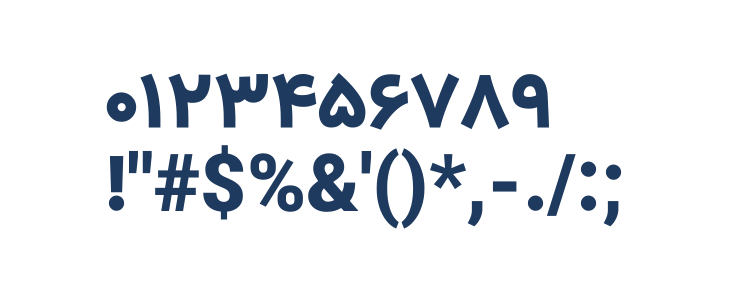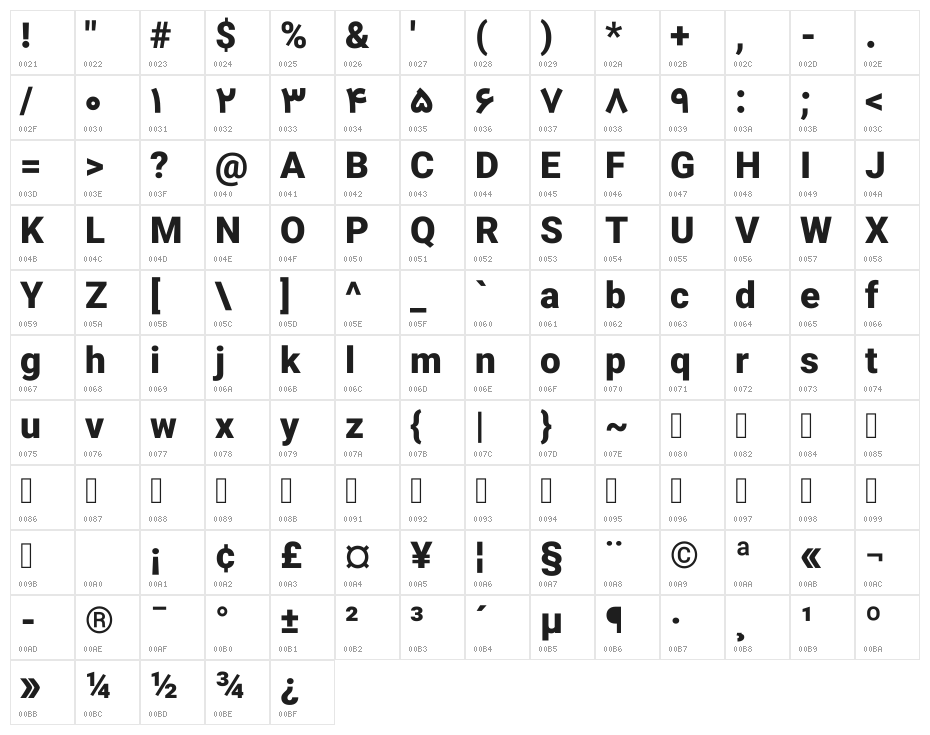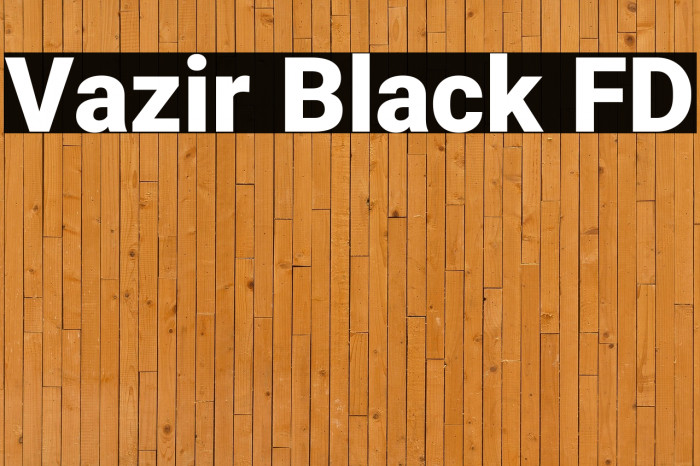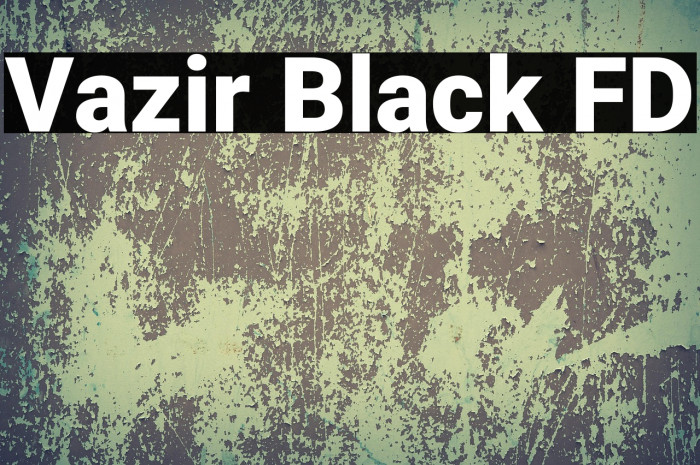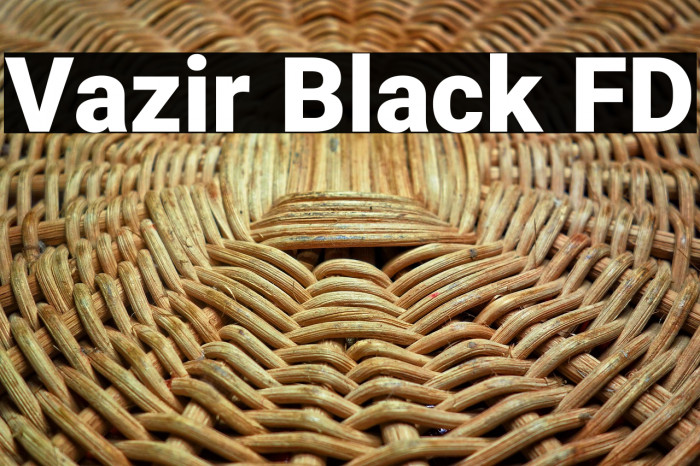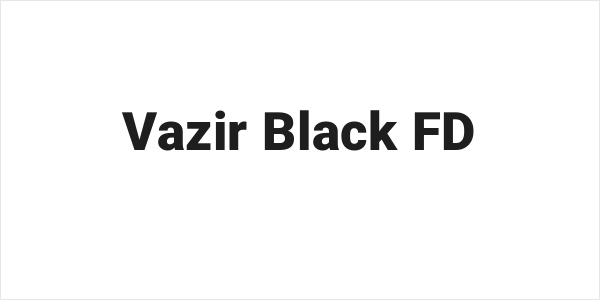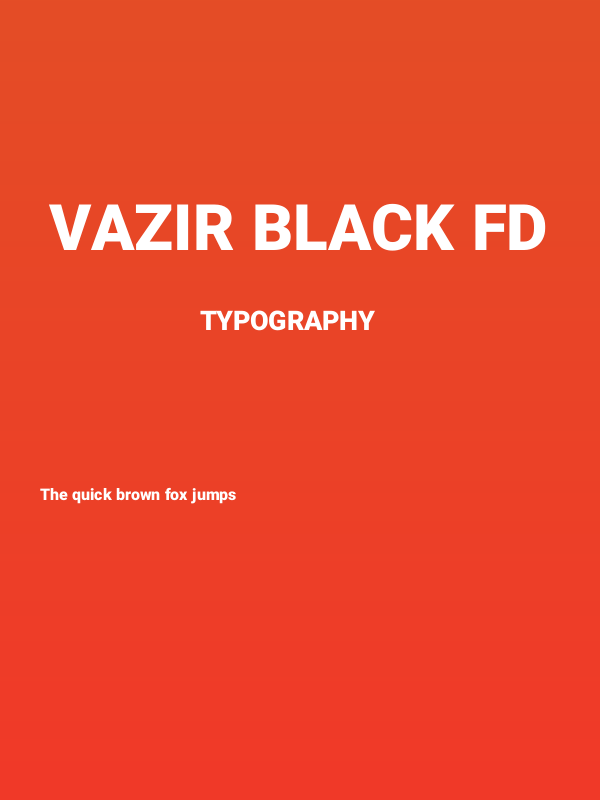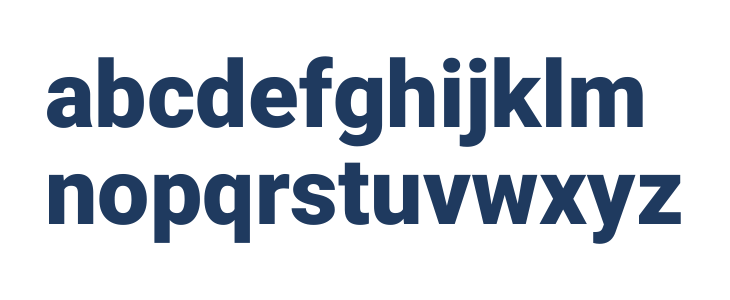
Vazir Black FD Font
Vazir Black FD Description
This font features a bold and robust design, characterized by its thick strokes and strong presence. The uppercase and lowercase letters maintain a consistent weight, providing a sense of uniformity and balance. The numerals are distinct and easily readable, complementing the overall bold style. Special characters are crafted with the same attention to detail, ensuring they blend seamlessly with the alphabetic characters. The font's design is modern and versatile, making it suitable for a wide range of applications where clarity and impact are essential.
| Proposed Projects | Ideal for headlines, posters, branding, and any project requiring a bold statement. |